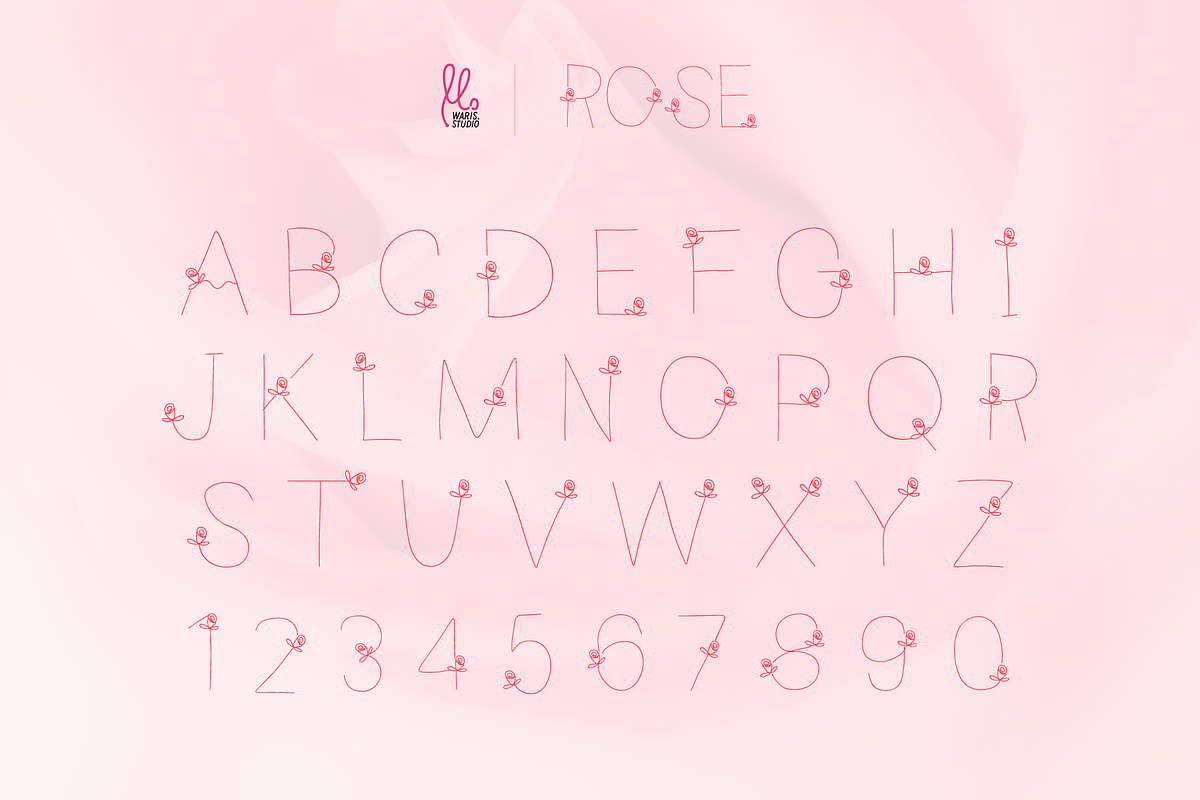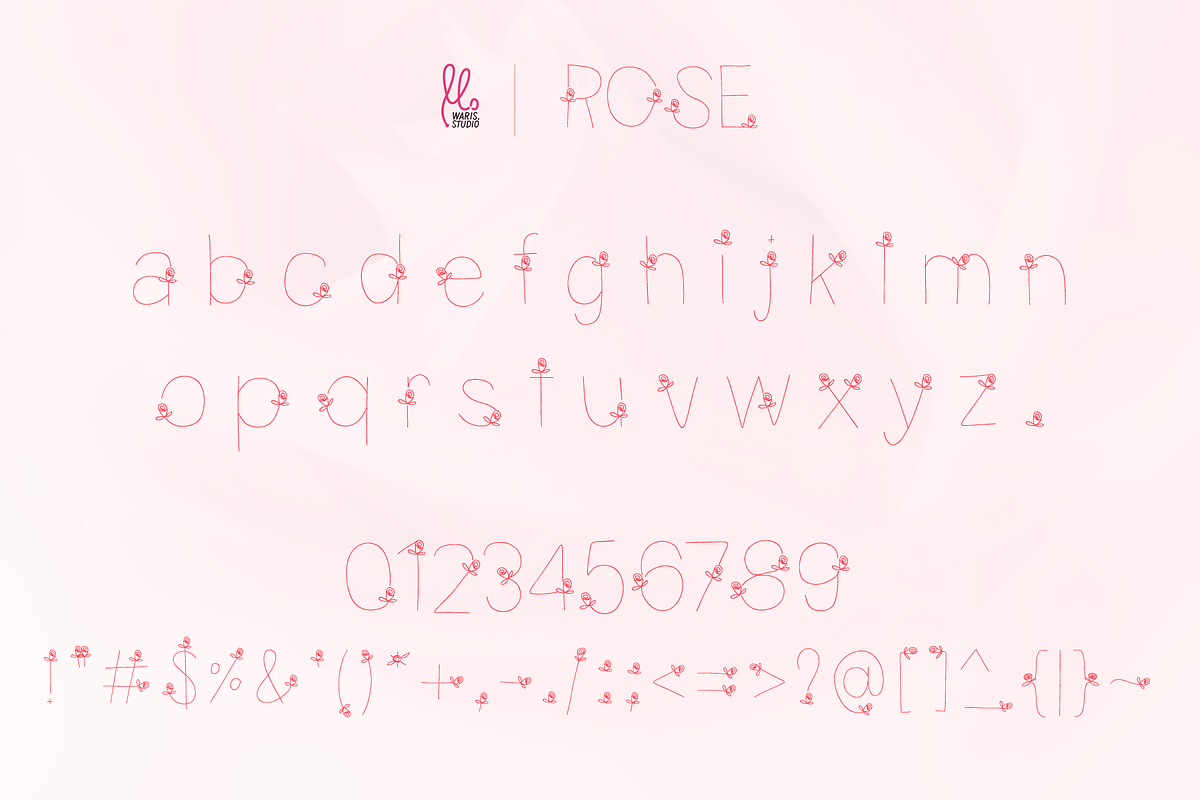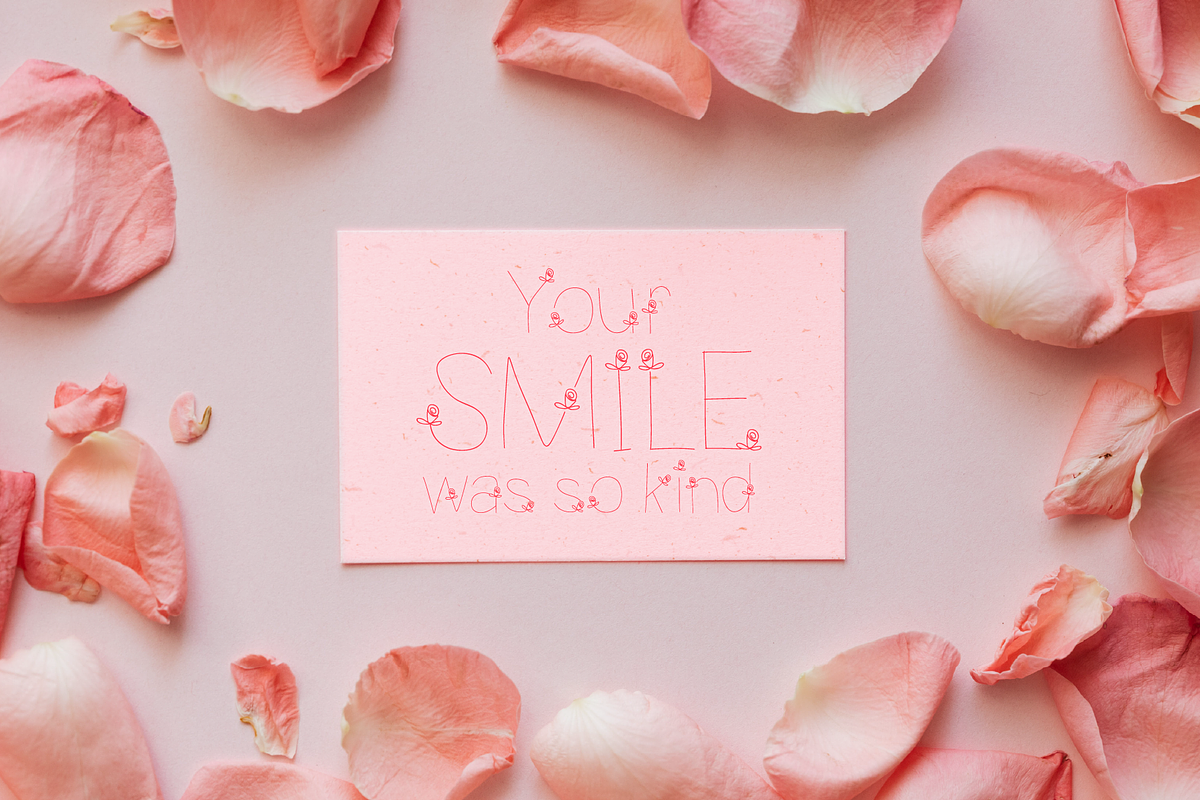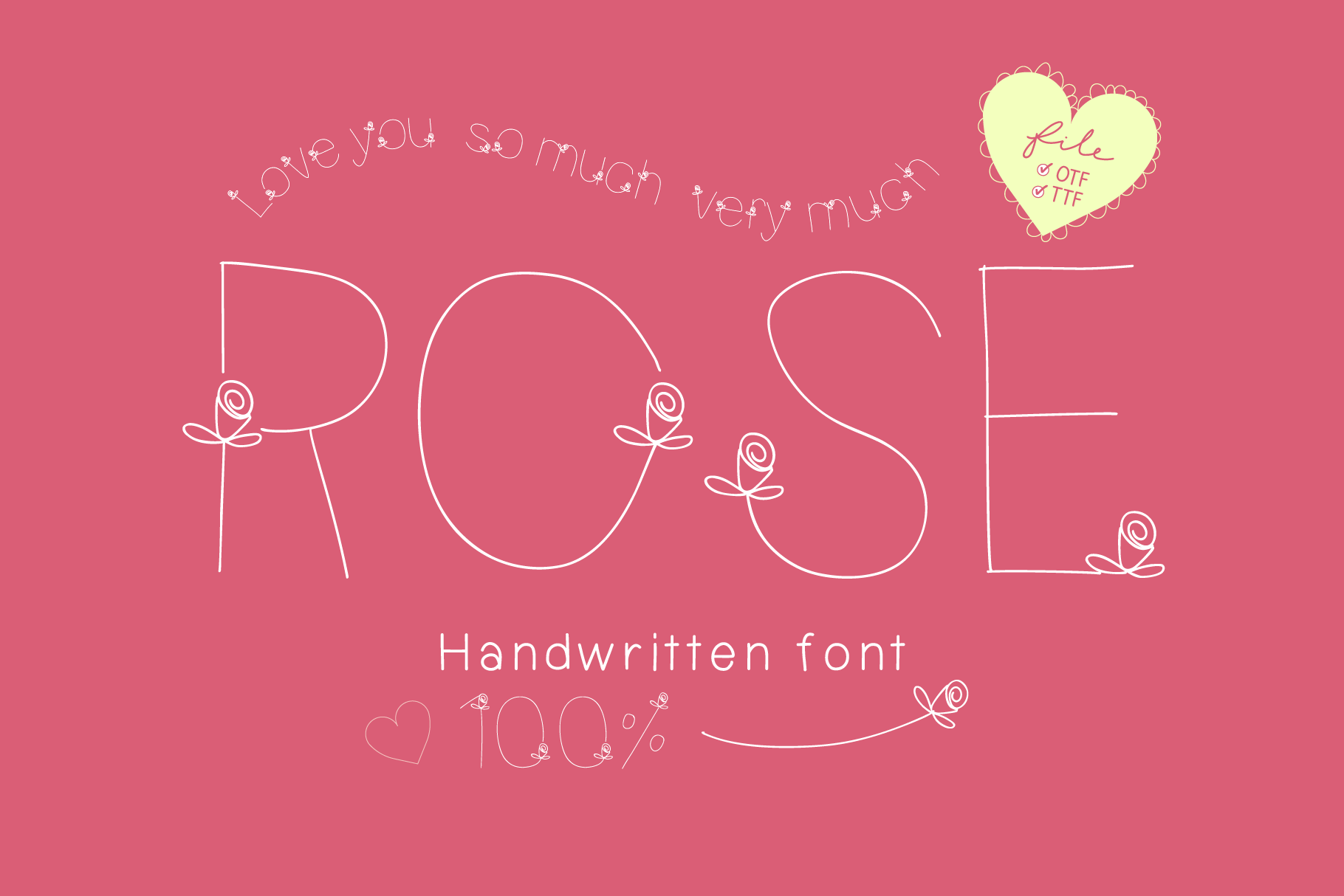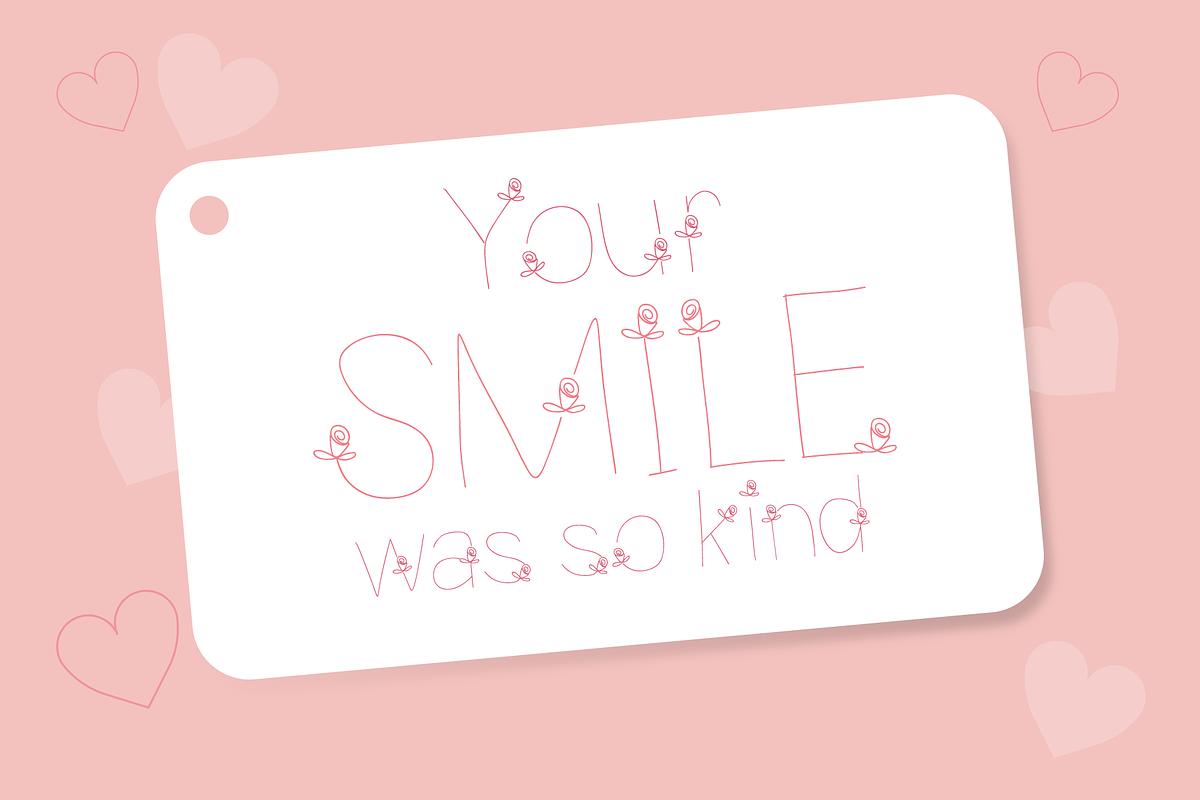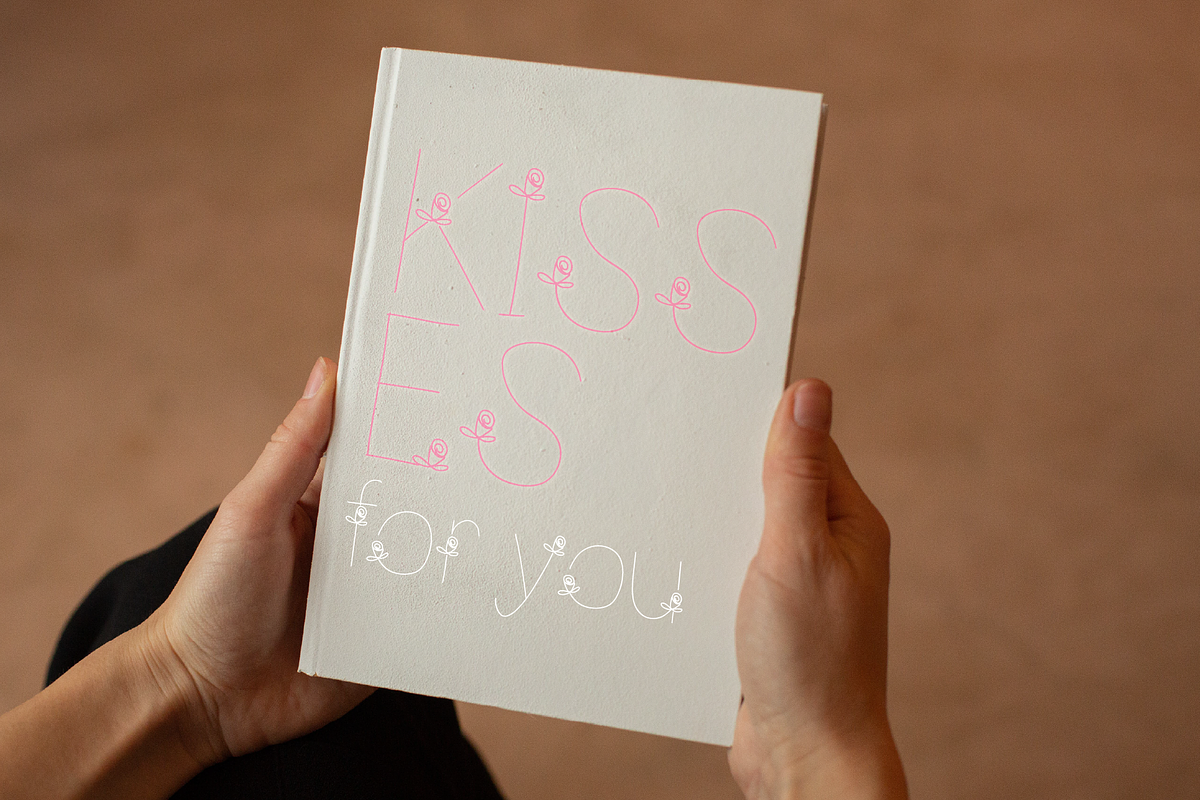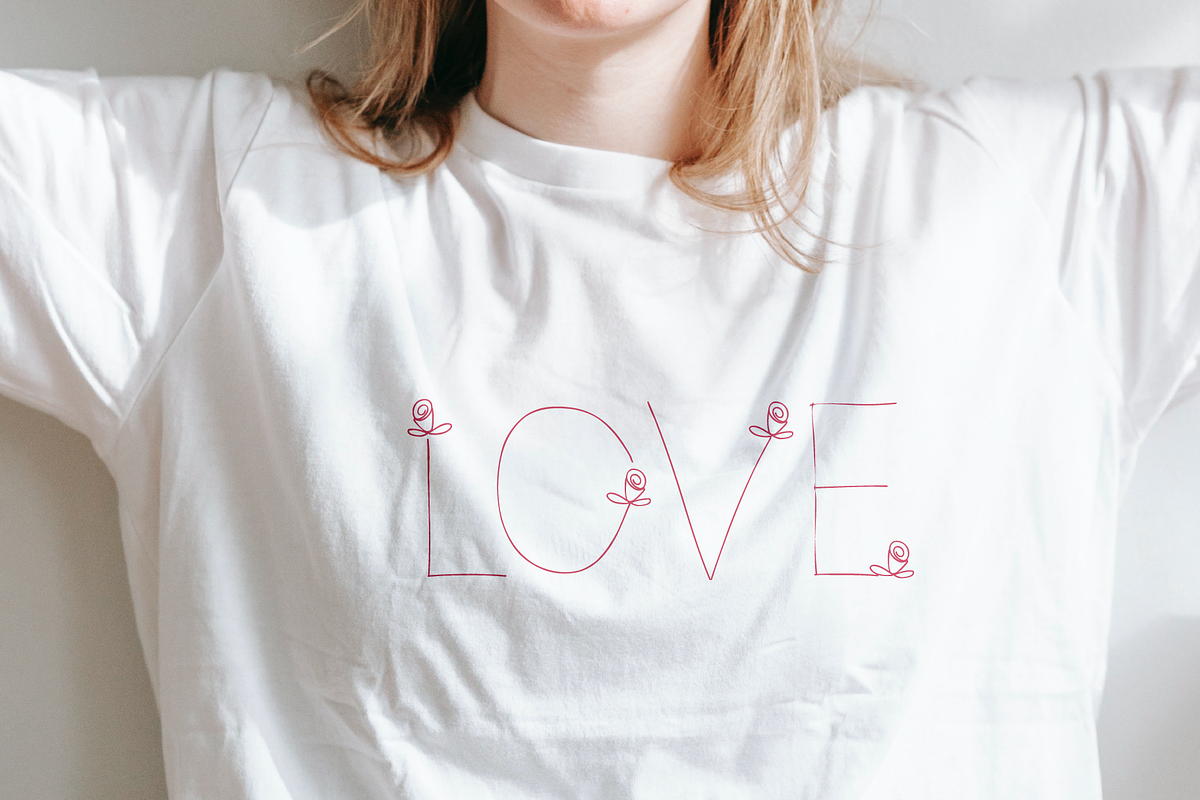
Rose - Elegant Handwritten Font
Embrace the charm of heartfelt handwritten design with Rose, a beautiful and delicate script font. Crafted with love, this unique typeface features charming hand-drawn rose embellishments intertwined within the letterforms, adding a touch of whimsical elegance to every creation.
Rose is more than just a font; it's an expression of romance, sweetness, and genuine artistry. Its thin, flowing lines and adorable floral accents make it perfect for projects that need a soft, personal, and utterly captivating touch.
🌹Full Set of Glyphs: Uppercase and lowercase letters, numbers, punctuation, and a comprehensive range of ligatures and alternates to give your text a truly custom, handwritten feel.
🌹Multilingual Support: Reach a wider audience with extensive language support, ensuring your designs resonate globally.
- Wedding Invitations & Stationery: Create breathtaking invites, RSVP cards, menus, and thank you notes that exude romance.
- Greeting Cards: Design sweet and personalized cards for anniversaries, Valentine's Day, or just because.
- Branding & Logos: Give brands a soft, approachable, and memorable identity.
- Social Media Graphics: Make your posts stand out with a unique and engaging handwritten touch.
- Quotes & Posters: Add a beautiful, artistic flair to your favorite quotes or print designs.
- Product Packaging: Enhance product appeal with charming and elegant labels.
- Craft Projects: Perfect for Cricut and Silhouette designs, signs, and more.
- Digital Scrapbooking & Journals: Add a personal and pretty touch to your memories.
Why Choose Rose?
- Unique & Artistic: Stand out with a font that has a distinct personality and beautiful hand-drawn details.
- Versatile: Adaptable for a wide range of projects, from highly romantic to sweetly casual.
- High Quality: Professionally crafted to ensure clean lines and smooth curves at any size.